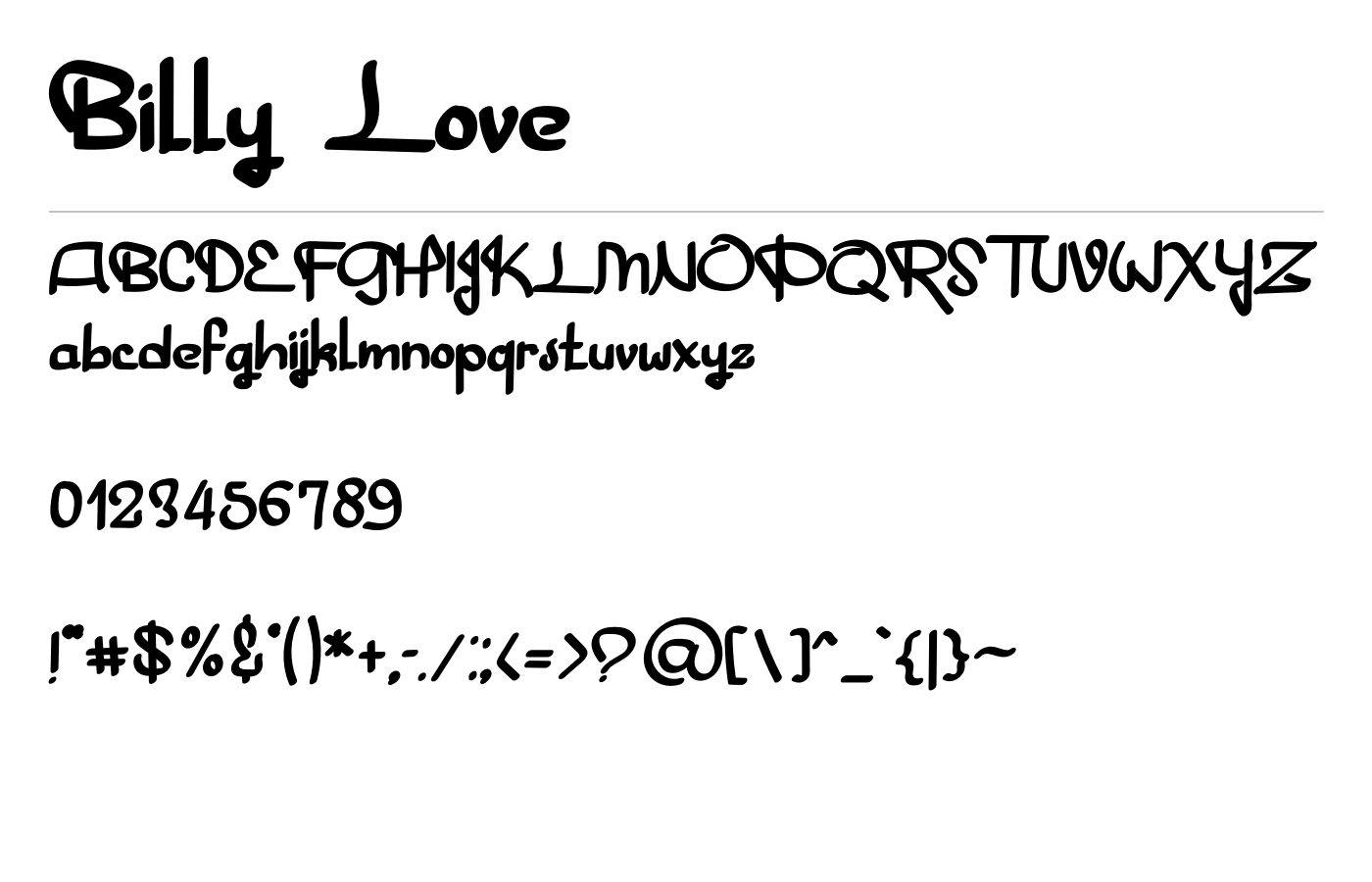
Billy Love is a quirky, handwritten-style font with playful, rounded letterforms and a casual, friendly vibe. Its bold weight and unique character shapes make it perfect for creative projects, logos, and headlines that want to convey warmth and originality. This font works well where a fun, approachable, and informal tone is desired.
Billy Love Font
About Billy Love Font
| Font family | Billy Love Font |
| Designer | Nur Edi Prayitno |